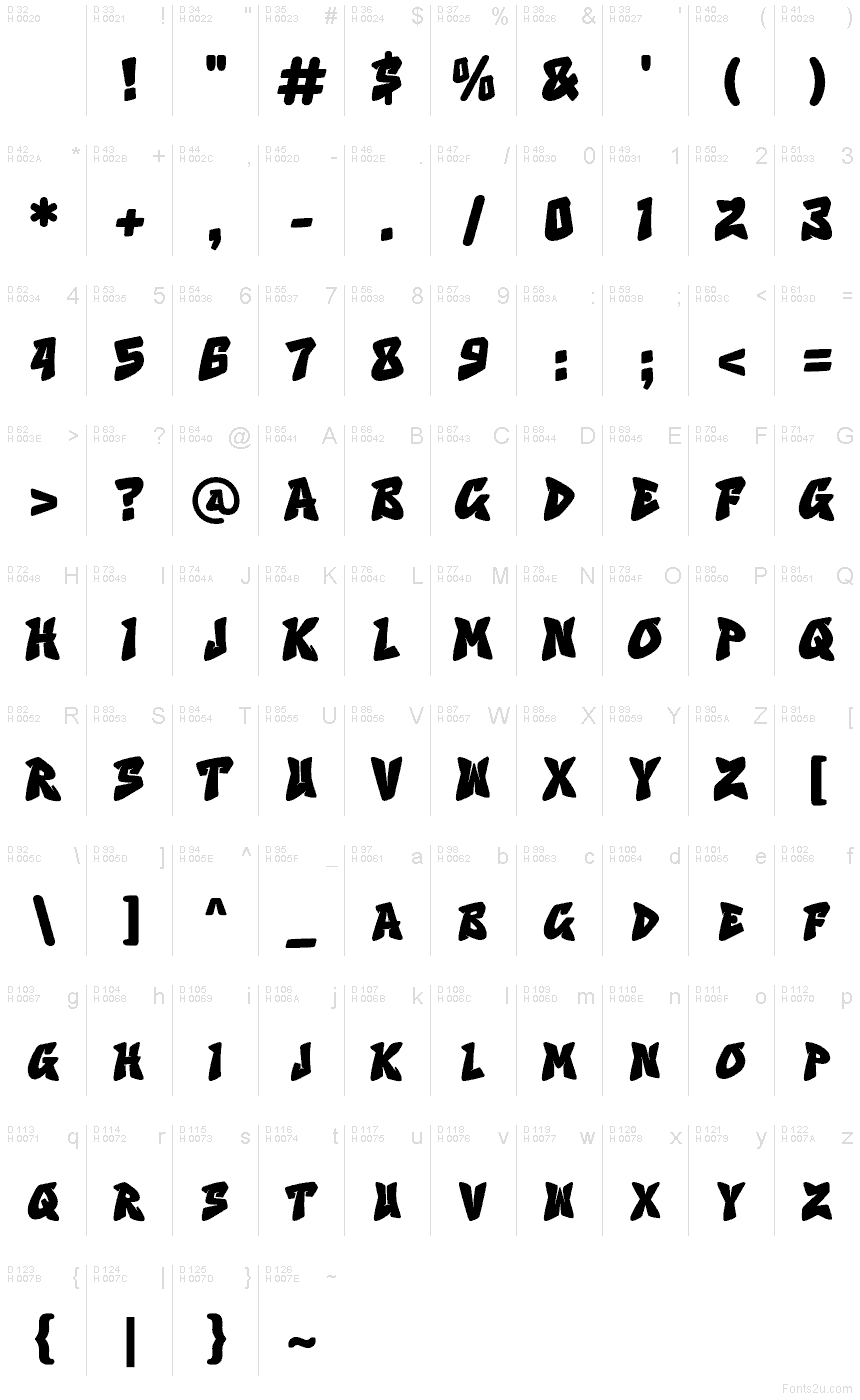
Guner Graffiti Regular
Guner Graffiti font by Fitrah Type is a free graffiti display font built to bring street energy to digital and print. Its chunky, inked strokes swing from wide curves to razor edges, creating a punchy rhythm that reads fast and hits hard. Letters stack tight like a fresh tag on brick, with bold fills and lively negative spaces that feel hand-sprayed and unapologetically loud.
Using Guner Graffiti, your visuals get instant urban attitude—great for streetwear logos, album covers, event posters, YouTube thumbnails, skateboard stickers, and food-truck menus. This free font thrives big and bold; keep it large for impact. Pair with a simple, light-weight sans to let the wild forms lead while the details stay crisp and readable.
Guner Graffiti by Fitrah Type